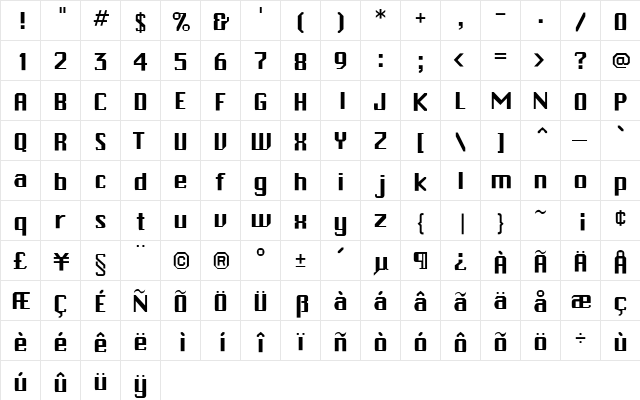
ChiTown Regular
Design Context for ChiTown Typeface
ChiTown is a composed and adaptable typeface that performs quietly and consistently across a wide range of design contexts.